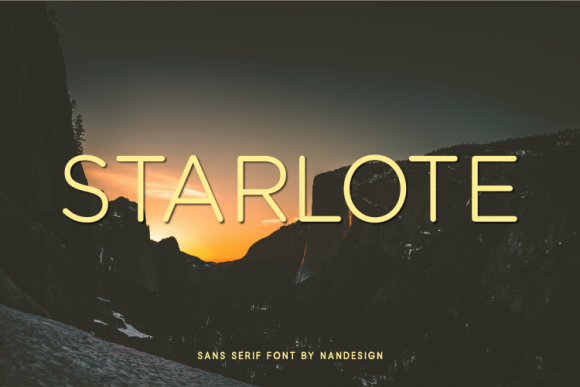
Unleash your creativity with Starlote, a captivating sans serif font that will elevate your designs to new heights! Immerse yourself in the world of this stunning font, meticulously crafted to transform your projects into captivating masterpieces.
With Starlote, the possibilities are limitless. Its clean lines and versatile style make it the perfect choice for a myriad of projects, from professional CVs to eye-catching logos. Create stunning headings that demand attention and design invitations that will leave a lasting impression. Starlote's versatility shines in displays, headers, and save-the-dates, adding a touch of elegance and sophistication to any occasion.
But it doesn't end there! Starlote's charm extends to the world of web design, bringing your online presence to life. Its crisp and clear characters ensure readability, while its stylish curves add a touch of visual delight. Whether you're crafting engaging blog posts, creating impactful social media graphics, or designing captivating websites, Starlote has got you covered.
So, why settle for ordinary when you can have extraordinary? Embrace the power of Starlote and watch your designs blossom into works of art. Let your creativity soar and make a statement that will turn heads.
Prepare to be captivated by Starlote, the font that will ignite your passion for design and leave an unforgettable mark on your projects.